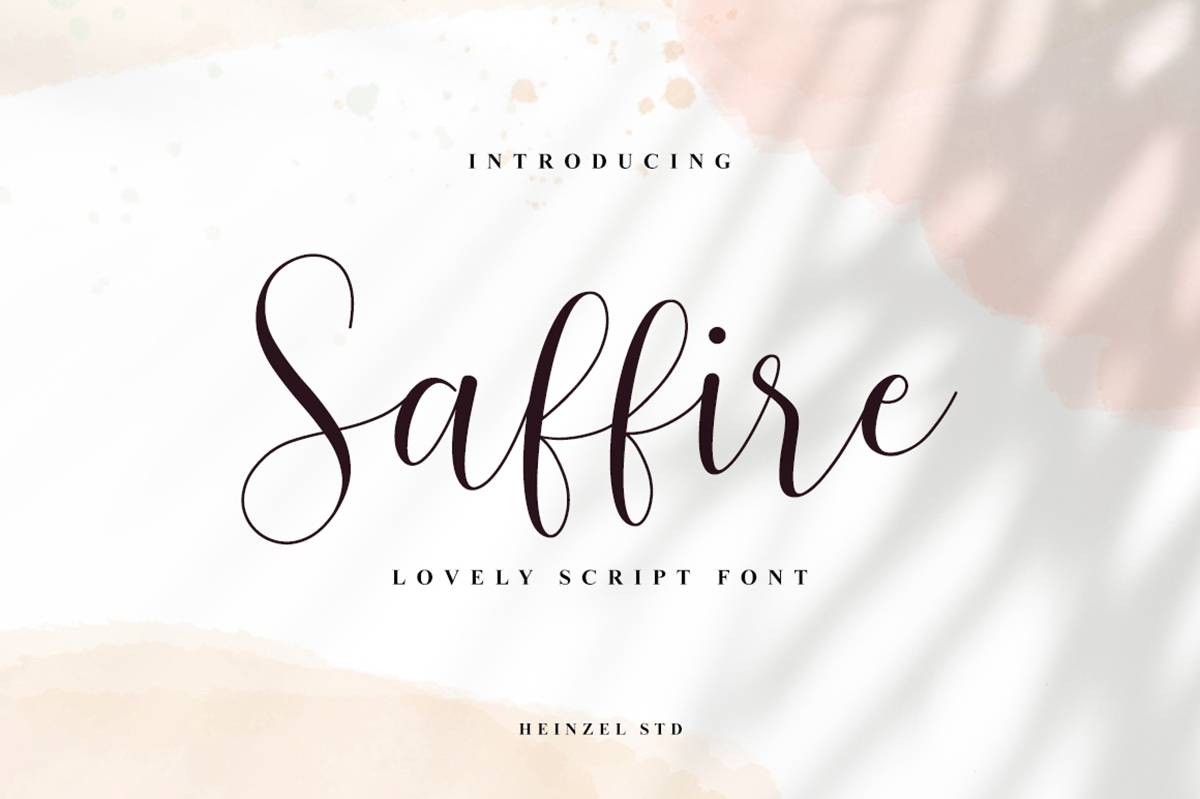
Saffire is an elegant, thin script font with flowing, feminine strokes that create a delicate and sophisticated look. Its tall, slender letterforms and gentle curves make it ideal for invitations, branding, and any design that needs a graceful, romantic touch. This font's refined style works best in decorative headlines and logos where elegance is key.
Saffire Font
| Designer | Nofi Sofyan Hadi |